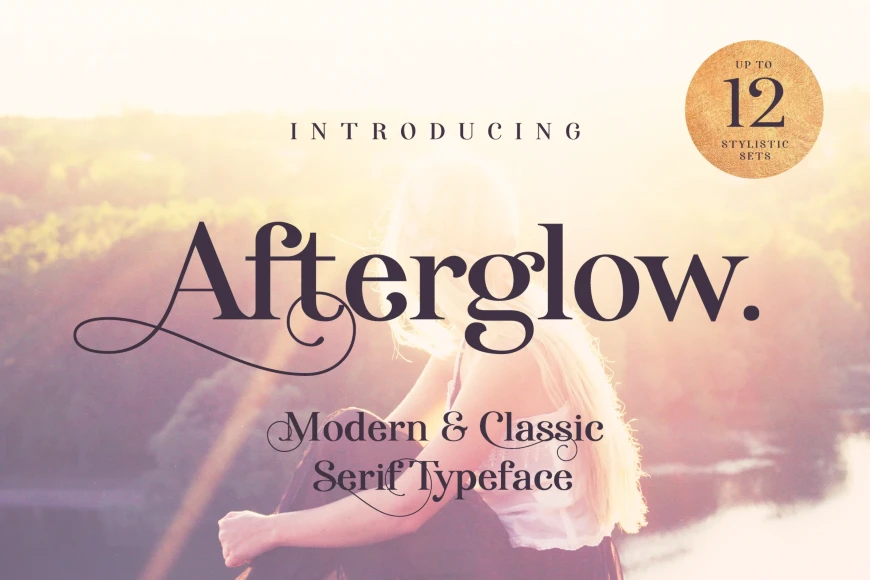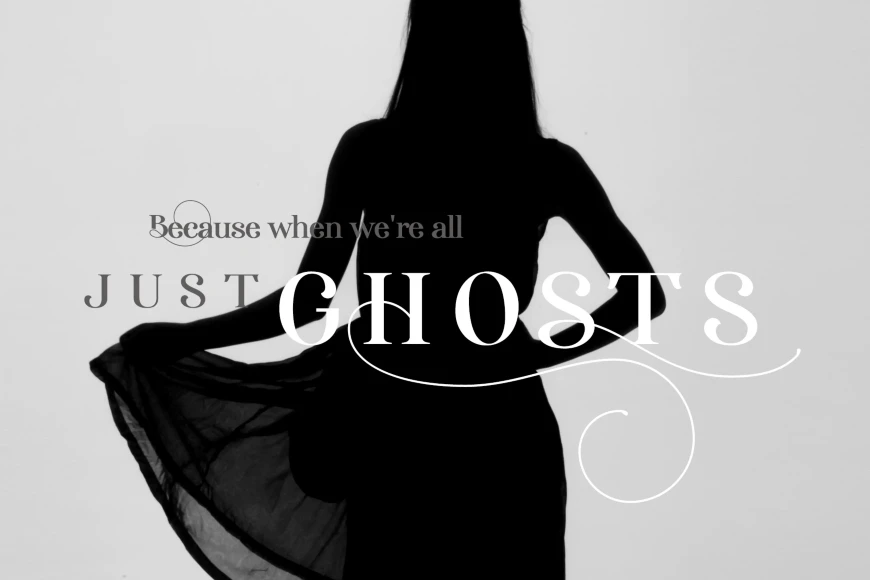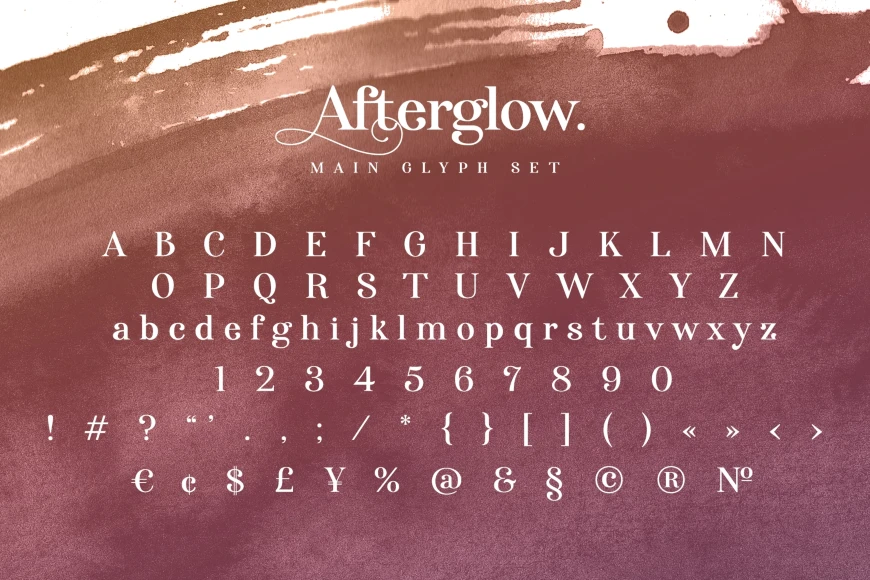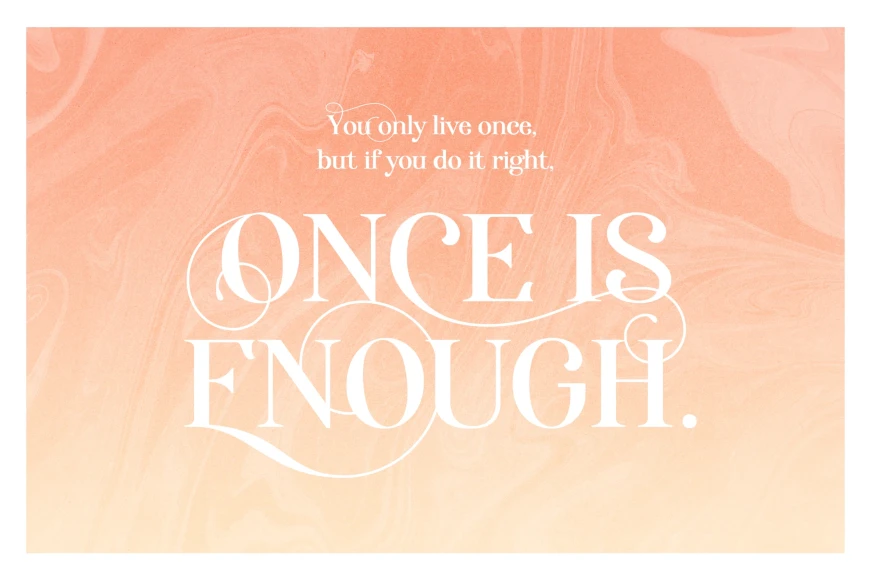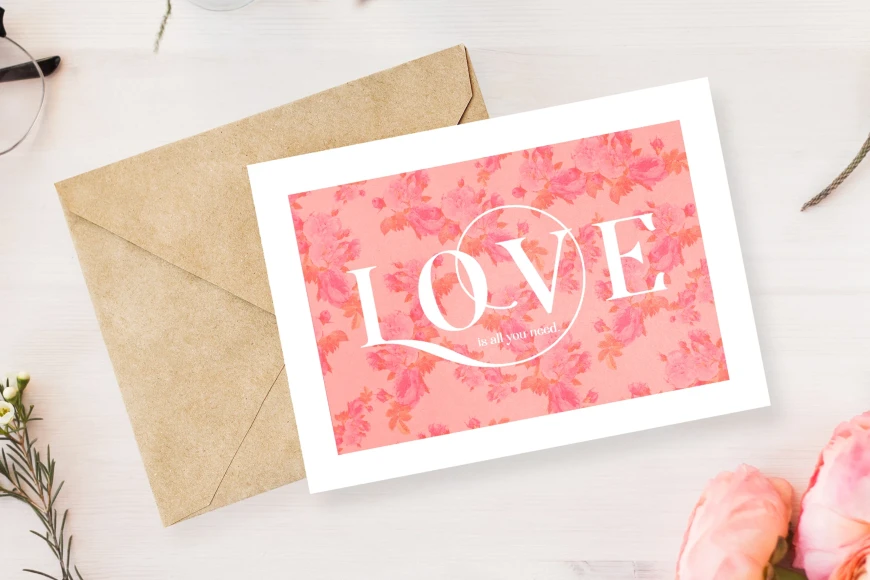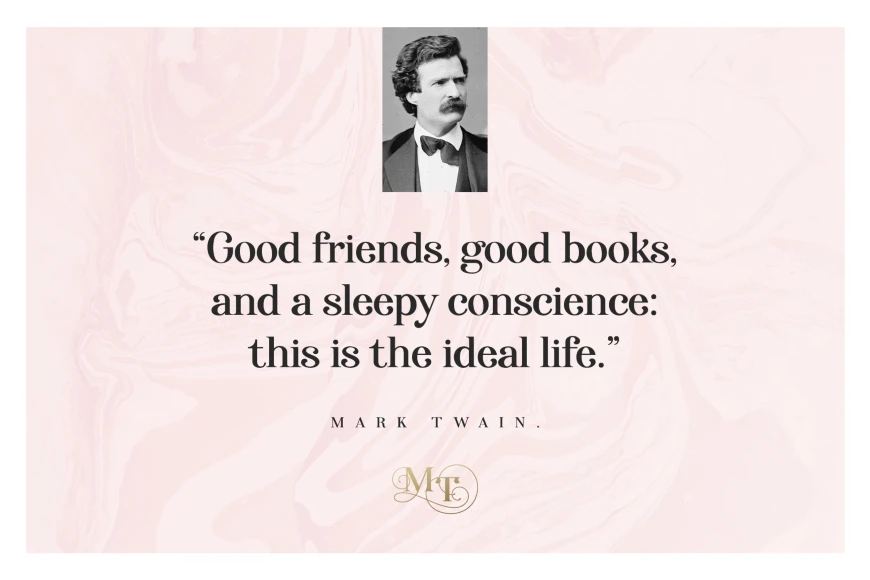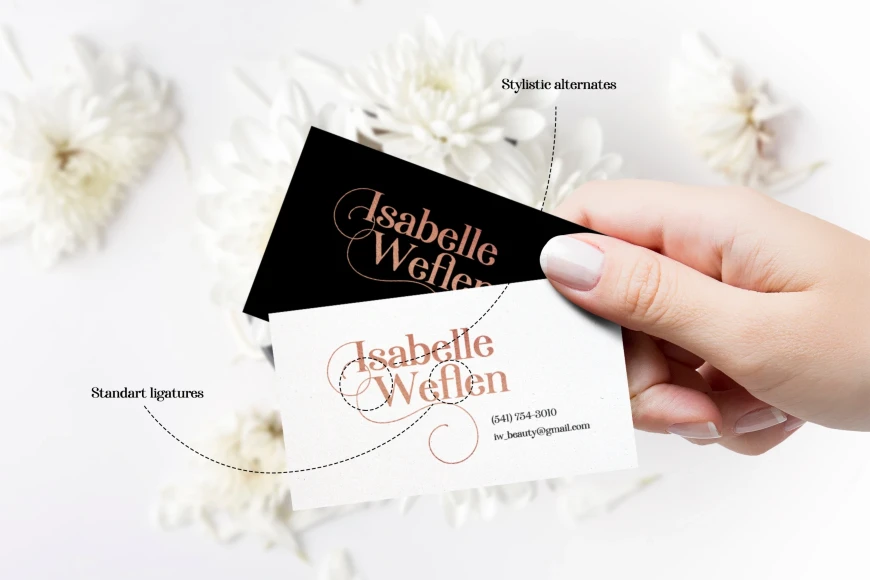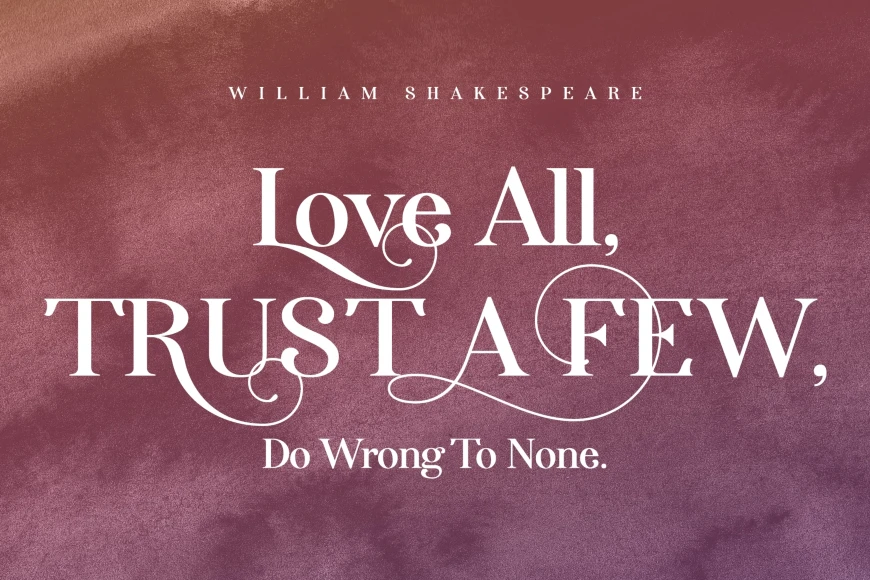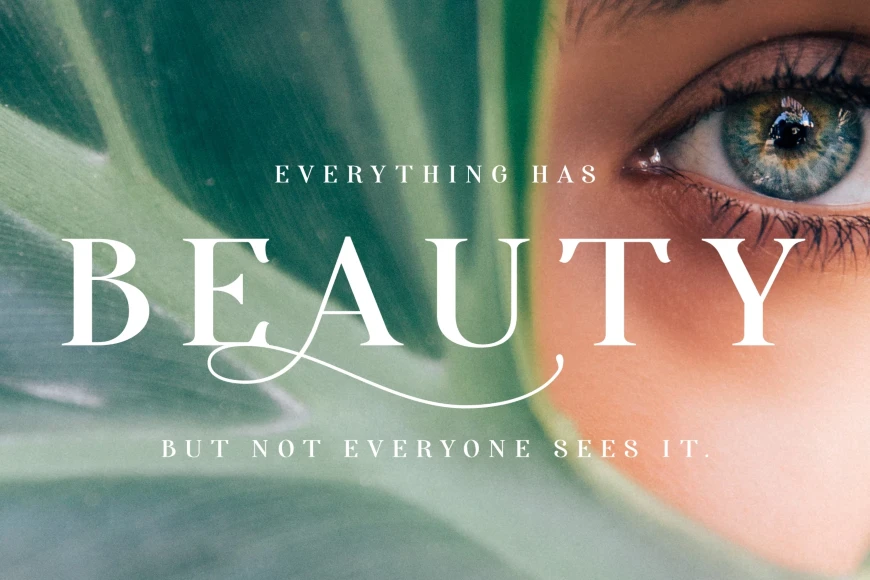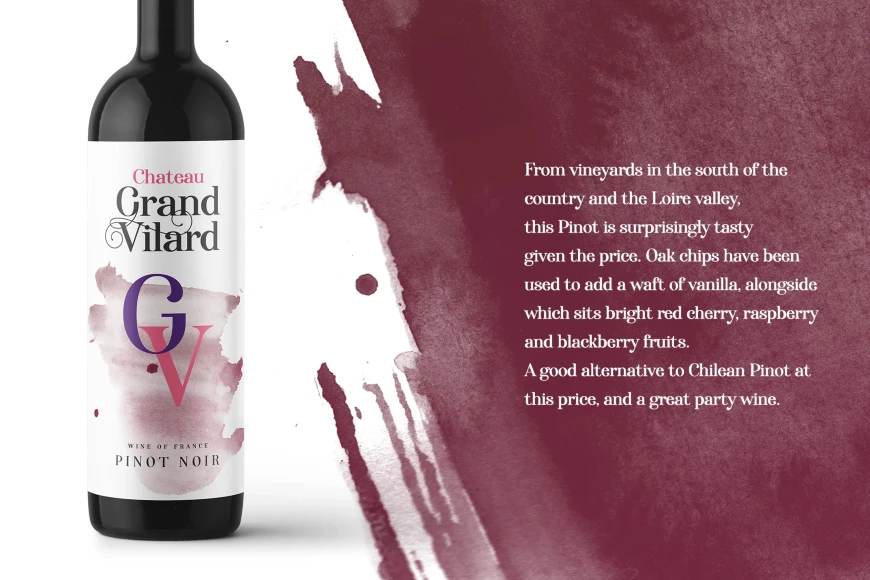
Afterglow
Afterglow is an elegant serif typeface with high contrast strokes and refined details. Features a wide range of stylistic alternates, including elegant swashes, with some letters offering up to 12 variations. Works beautifully in all-caps for headers and quotes, giving a strong and polished look. Combines well with lowercase for subheads and block text. Suited for art and beauty blogs, apparel, websites, posters, magazines, cards, and logos. Designed to be a go-to choice for stylish, expressive design.